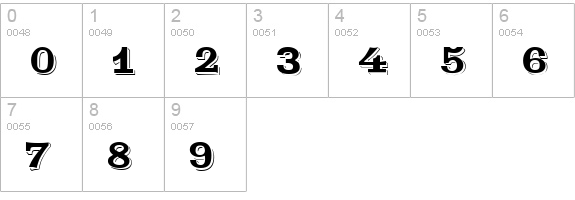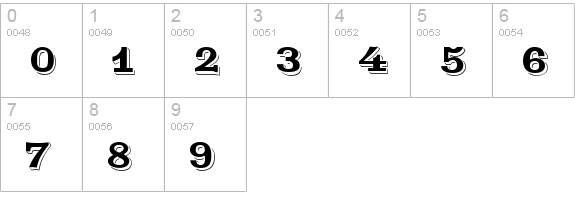
Gold Regular is the standard, neutral variant in the Gold typeface family \xE2\x80\x94 well suited to general body text, paragraphs, and standard typographic work.
Gold Regular font is a sophisticated and elegant typeface that exudes a sense of luxury and prestige. Its sleek and timeless design makes it perfect for a wide range of projects, from branding to editorial design. The font features clean lines and a classic style that is sure to enhance any design it is used in. What sets Gold Regular font apart is that it is available for free download at FontsMarket.com. This means that you can easily access this premium font without any cost, making it a valuable resource for designers and creatives looking to elevate their projects. Whether you are working on a high-end branding project or a stylish editorial layout, Gold Regular font is sure to add a touch of sophistication and class. Download it today and elevate your designs with this exquisite typeface.